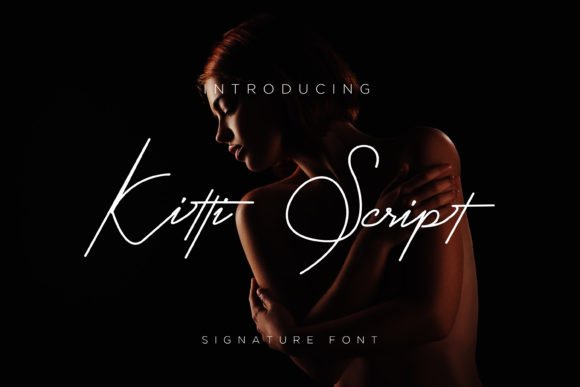
Unleash Your Creativity with Kitti Script Font
Have you ever stared at a blank canvas, feeling like your creativity is stuck in neutral? That’s exactly where I was when I stumbled upon the enchanting Kitti Script Font. Its whimsical charm and playful feel instantly sparked a wave of inspiration within me. As a designer, I know I’m not alone in this struggle – we’re always on the lookout for that perfect font to elevate our projects.
The Kitti Script Font is more than just a pretty face; it’s a powerful tool that can add a touch of personality to any design. With its unique signature style, this font is perfect for creating eye-catching logos, social media graphics, and even wedding invitations. Whether you’re a seasoned pro or just starting out, this font is sure to bring a smile to your face and a spark to your creativity.
Kitti Script Font Key Features
- Font Family: Kitti Script, a beautiful and elegant script font designed for creative and artistic purposes.
- Unique Characteristics: Features a flowing, handwritten style with subtle flourishes and connecting strokes, adding a touch of elegance and sophistication to any design.
Kitti Script Font Review
I recently had the chance to work with the Kitti Script font, and I must say it’s a lovely addition to any design project. ✨ The font’s elegant, cursive script is perfect for adding a touch of sophistication and romance to headings, titles, or even entire body text.
- ✨ Elegant and sophisticated design: The Kitti Script font has a beautiful, flowing design that’s perfect for adding a touch of elegance to any design project.
- ✨ Versatile: The font can be used for a wide range of projects, from wedding invitations to product packaging.
- ✨ Highly legible: Despite its cursive design, the Kitti Script font is surprisingly easy to read, even at small font sizes.
- ⚠️ Limited font sizes: The font may not be suitable for very small font sizes, as the lines can become blurry and difficult to read.
- ⚠️ Limited character set: The Kitti Script font may not include all the characters you need, which can be a problem if you’re working on a project that requires a specific character set.
Overall, I’m impressed with the Kitti Script font. It’s a beautiful, versatile font that’s perfect for adding a touch of elegance to any design project. With a few minor limitations, I’d definitely recommend it to anyone looking for a high-quality script font.
Tips for Getting the Most Out of Kitti Script Font
Use Kitti Script Font for decorative text, such as titles, headings, and quotes.
Pair Kitti Script Font with a clean and simple font, such as Arial or Helvetica, for body text.
Experiment with different font sizes and colors to create visual interest and emphasis.
Kitti Script Font is ideal for:
Restaurant menus and branding.
Photography captions and quotes.